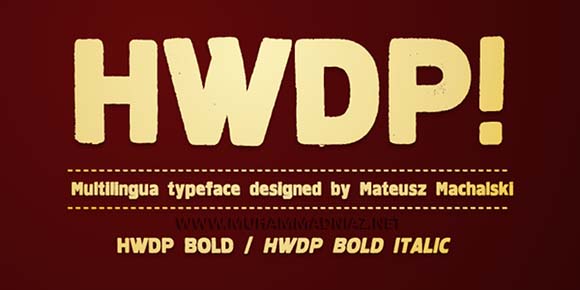
HWDP Font Family Information
HWDP is heavy letterpress type. HWDP has two style: bold and bold italic. This type looks great in headlines and longer text. With support for over 42 languages HWDP is a great choice for the rough, raw, and rugged look. You can also create your own logo with HWDP Family font.